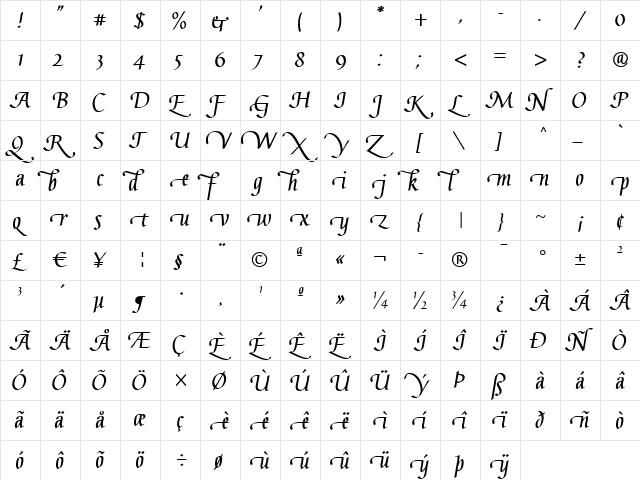
Gaius LT Bold Font Preview
Gaius LT Bold
Gaius LT Bold Font Details
Design Context for Gaius LT Typeface
Gaius LT is a composed and adaptable typeface that performs quietly and consistently across a wide range of design contexts. Its bold stroke weight gives it real presence on the page.